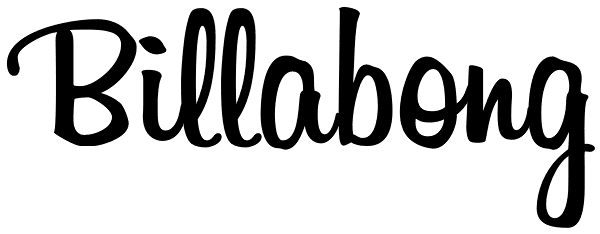
Billabong
Billabong has its origins in the handlettered 40s and 50s script headings that seem to have endured especially in signage when style doesn't matter too much. Unlike today’s scripts Billabong is tightly spaced and Opentype font features allow for a...